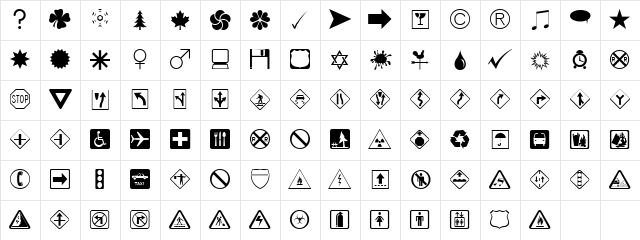
Complete DingDongSignsotheTimes Medium glyph index. Displaying only characters natively supported by DingDongSignsotheTimes Medium font.
DingDongSignsotheTimes is a composed and adaptable typeface that performs quietly and consistently across a wide range of design contexts.